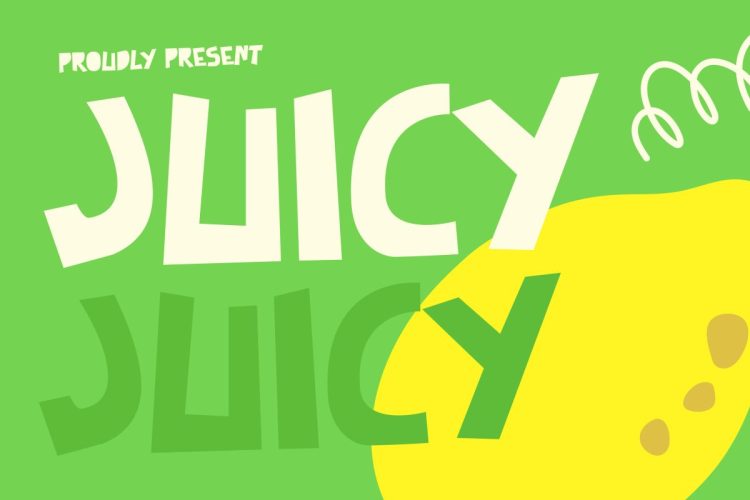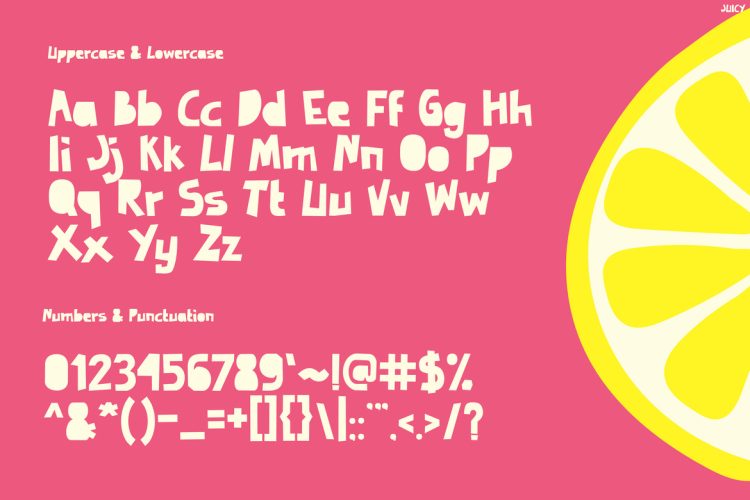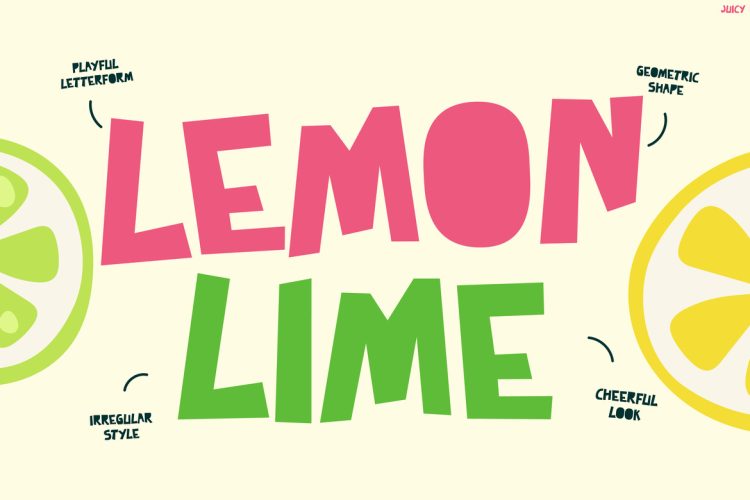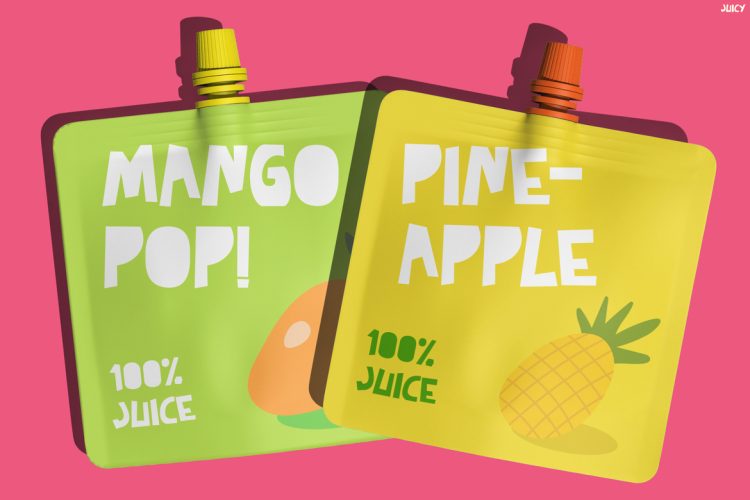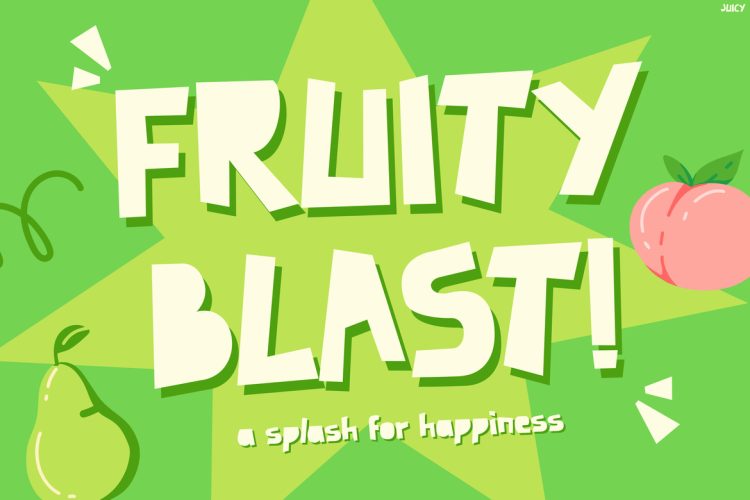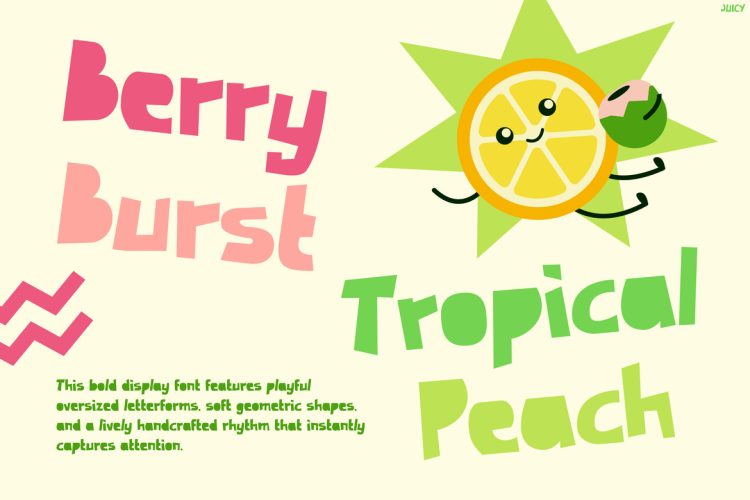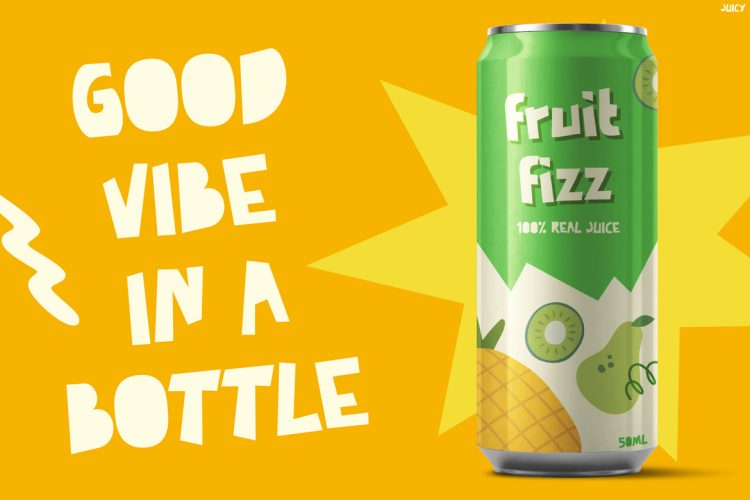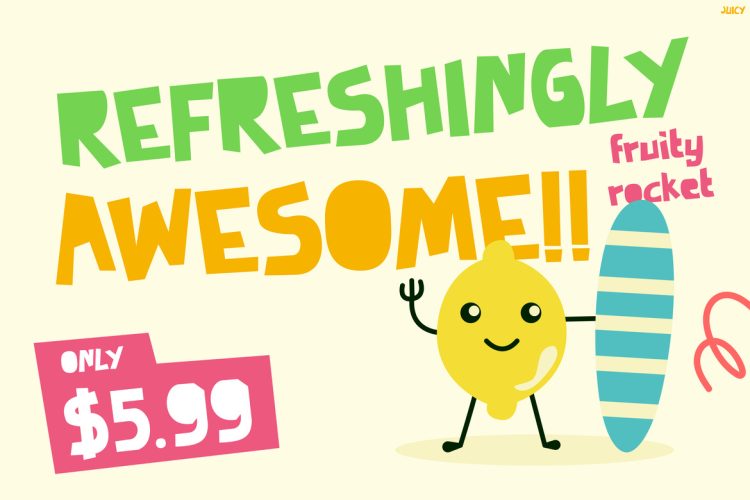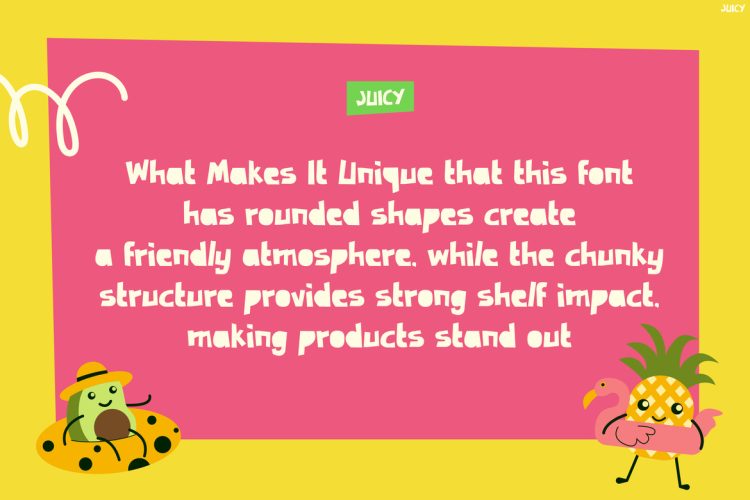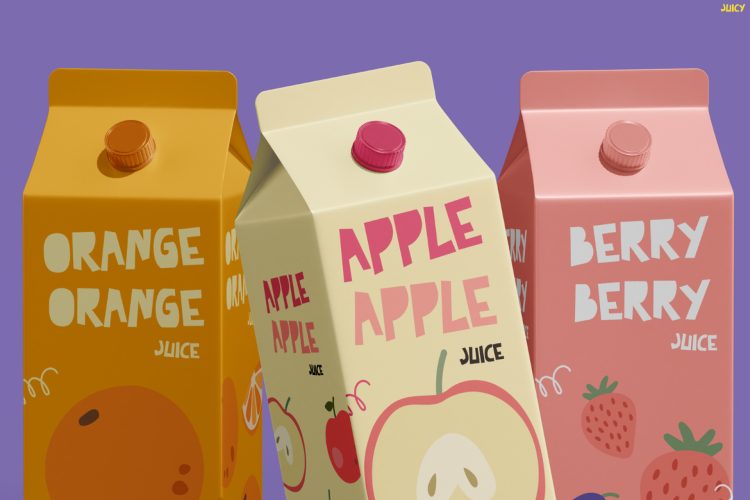
Kids Font Juicy โ Fresh & Fruity Kids Display Font
Kids Font Juicy is a bold, playful display font designed to bring energy, happiness, and creativity into every design. Inspired by colorful fruits, refreshing drinks, and cheerful children’s themes, this font features chunky letterforms, lively shapes, and a fun-loving personality. Moreover, its eye-catching style instantly grabs attention, while its smooth curves keep the look friendly and approachable. As a result, every headline feels brighter, more exciting, and full of life. Whether you’re creating packaging, branding, or promotional materials, Kids Font Juicy helps transform ordinary text into vibrant visual experiences. Furthermore, its unique aesthetic makes designs feel fresh, youthful, and memorable.
Made for Bright & Playful Projects
Kids Font Juicy combines strong visual impact with excellent readability. Not only does it create a fun and energetic atmosphere, but it also helps brands stand out in crowded markets. In addition, its versatile design works beautifully across both print and digital media. Consequently, designers can create bold visuals that feel consistent and engaging. Meanwhile, its fruity-inspired charm adds a sense of joy and excitement to every project. Therefore, it is a perfect choice for creative designs targeting kids, families, and fun-loving audiences.
Who Is It For?
Perfect for:
- Kids brands and products
- Juice and beverage packaging
- Snack and food branding
- Children’s events and promotions
- Toy packaging and merchandise
- Social media content creators
- Teachers and educational projects
- Graphic designers and illustrators
Additionally, it works great for logos, posters, labels, stickers, packaging, advertisements, and playful marketing campaigns.
Squeeze More Fun Into Your Designs
Kids Font Juicy is more than a typefaceโit is a burst of creativity packed into every letter. Furthermore, its playful character helps create stronger emotional connections with audiences. Consequently, your designs become more memorable and engaging. So, if you’re looking for a font that delivers fun, flavor, and personality, Juicy is ready to make your projects pop.